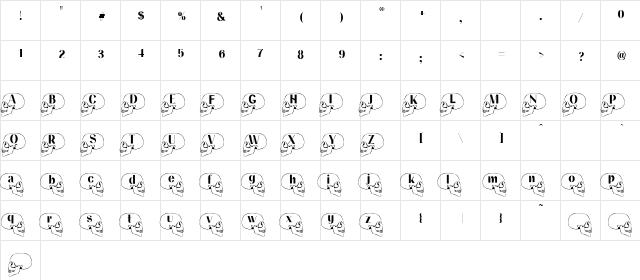
MarkedSkullSpaced Regular
Design Context for MarkedSkullSpaced Typeface
MarkedSkullSpaced is a composed and adaptable typeface that performs quietly and consistently across a wide range of design contexts.